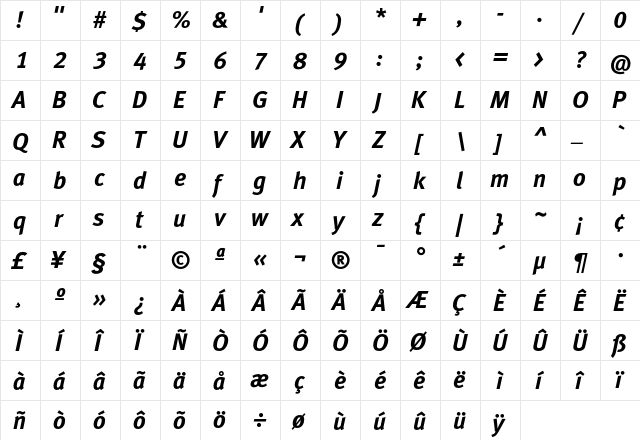
MetaBoldTurkLF Italic Font Preview
MetaBoldTurkLF Italic
Design Context for MetaBoldTurkLF Typeface
MetaBoldTurkLF offers clean, dependable letterforms without strong stylistic allegiance, making it a practical choice for designers who need flexibility. The slanted form adds forward momentum and visual energy. Its bold stroke weight gives it real presence on the page.